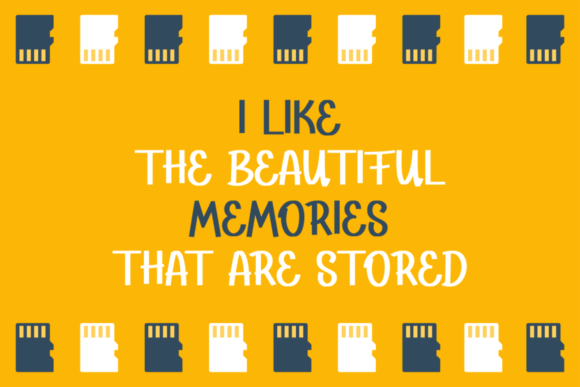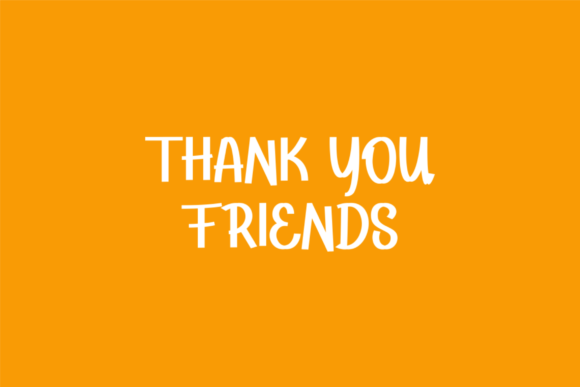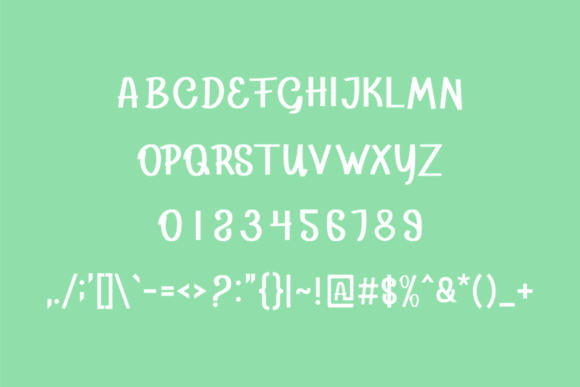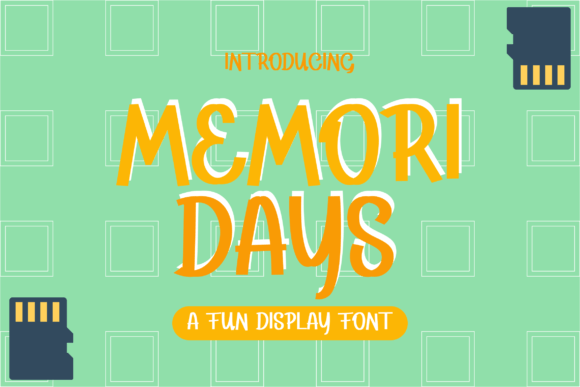
Introduction to Memoridays Font
Memoridays is a fun and casual sans serif display font.
Whimsical and a bit quirky, this font will brighten up each of your designs Add it confidently to your projects, and you will love the results.